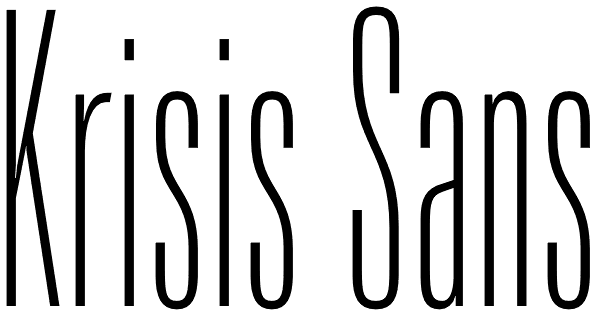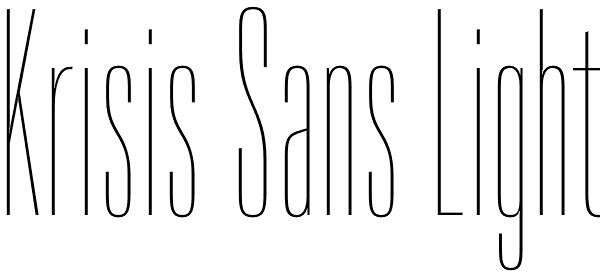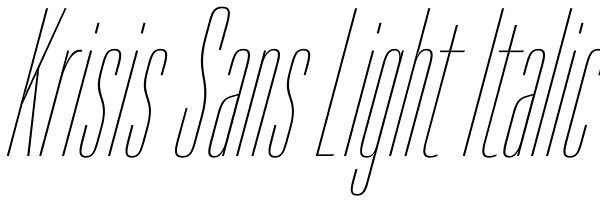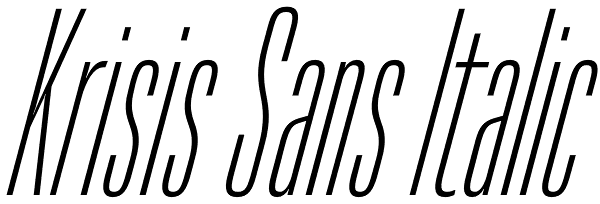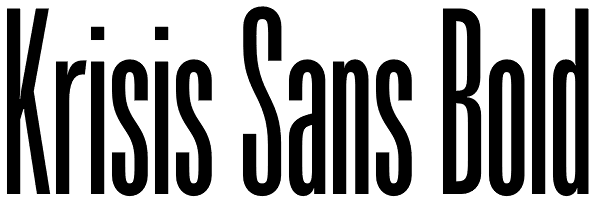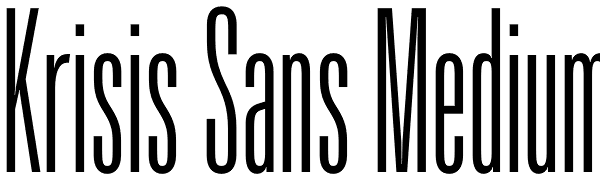
Krisis Sans
This font was originally designed for one lettering job with only one simple purpose—to be as much condensed as a font can be. Then it was developed as a font family of 4 weights with regulars and italics.